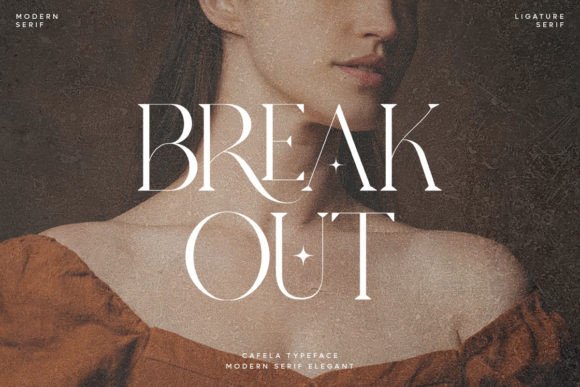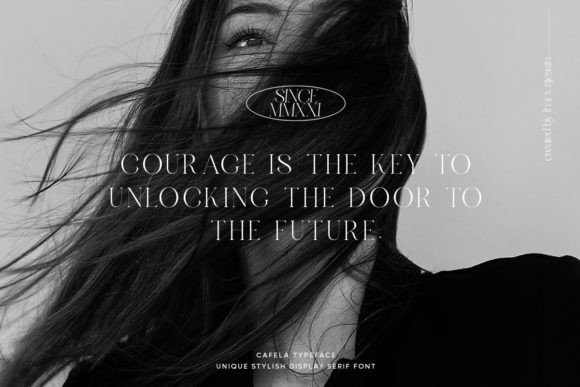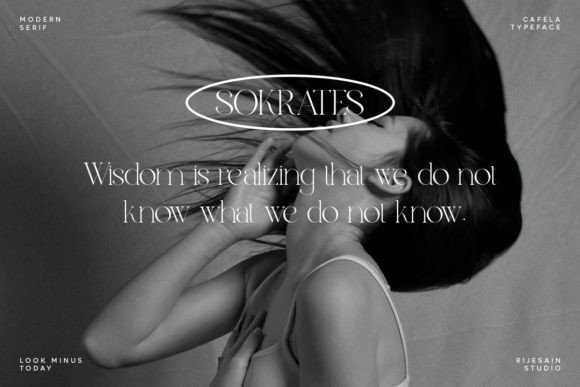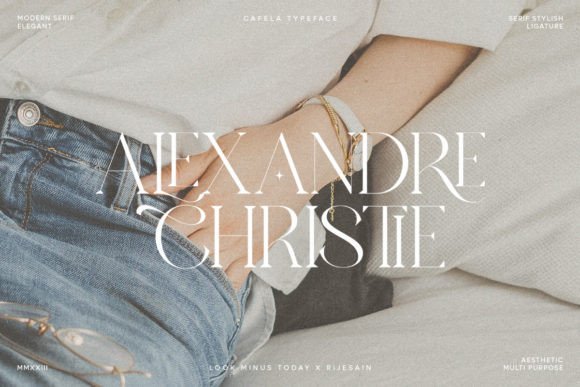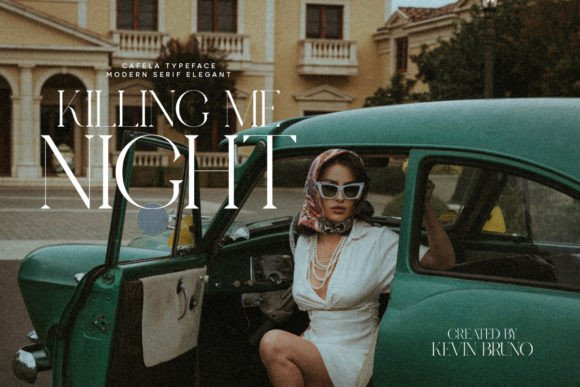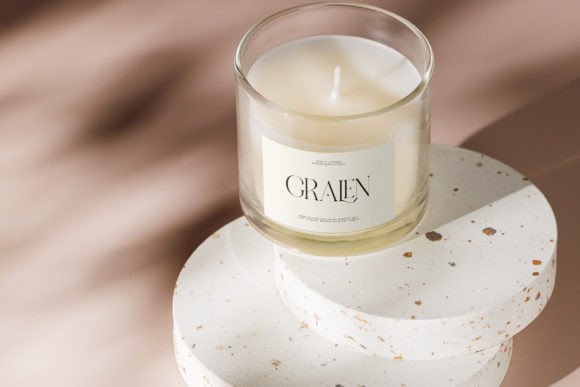
Cafela Font: Elevate Your Designs with Elegance and Sophistication
In the world of typography, the right font can make all the difference in creating a lasting impression. For designers and crafters seeking a refined and sophisticated typeface, Cafela Font is an excellent choice. This elegant and modern serif font is designed to bring a touch of luxury and professionalism to any design project.
The Characteristics of Cafela Font
Cafela Font boasts clean lines, a timeless feel, and a sophisticated aesthetic that exudes elegance and refinement. Its serif design adds a touch of classic sophistication, making it perfect for a wide range of applications, from print materials to digital designs. Whether you’re creating a luxury brand identity, a high-end product catalog, or a stylish website, Cafela Font is sure to impress.
One of the standout features of Cafela Font is its PUA (Private Use Area) encoding. This means that designers can access all glyphs and swashes effortlessly, giving them complete creative control over their typography. With PUA encoding, you can easily insert special characters, ligatures, and swashes to add an extra layer of sophistication to your designs.
Why Choose Cafela Font?
So, why should designers and crafters choose Cafela Font for their projects? Here are just a few compelling reasons:
- Elegance and sophistication: Cafela Font’s refined design makes it perfect for luxury brands, high-end products, and sophisticated digital designs.
- Versatility: This font is suitable for a wide range of applications, from print materials to digital designs, including headings, titles, and body text.
- Easy to use: With PUA encoding, designers can access all glyphs and swashes effortlessly, making it easy to add special characters and ligatures to their designs.
- Timeless feel: Cafela Font’s classic design ensures that it will remain stylish and relevant for years to come, making it a great investment for designers and crafters.
Applications for Cafela Font
Cafela Font is a versatile typeface that can be used in a wide range of applications, including:
- Print materials: Use Cafela Font to create stunning business cards, brochures, posters, and other print materials that require a touch of elegance and sophistication.
- Digital designs: This font is perfect for creating stylish website headers, social media graphics, and other digital designs that require a refined and sophisticated typeface.
- Branding and identity: Cafela Font is an excellent choice for luxury brands looking to create a high-end brand identity that exudes elegance and refinement.
Tips for Using Cafela Font
To get the most out of Cafela Font, here are a few tips to keep in mind:
- Use it sparingly: Cafela Font’s elegance and sophistication can be overwhelming if used excessively. Use it sparingly to create a lasting impression.
- Experiment with glyphs and swashes: Take advantage of PUA encoding to add special characters, ligatures, and swashes to your designs.
- Pair it with other fonts: Cafela Font can be paired with other fonts to create a unique and stylish typography combination.
In conclusion, Cafela Font is an elegant and modern serif font that is perfect for designers and crafters seeking a refined and sophisticated typeface. With its clean lines, timeless feel, and PUA encoding, this font is sure to add a touch of luxury and professionalism to any design project. Whether you’re creating print materials or digital designs, Cafela Font is an excellent choice for anyone looking to elevate their designs with elegance and sophistication.